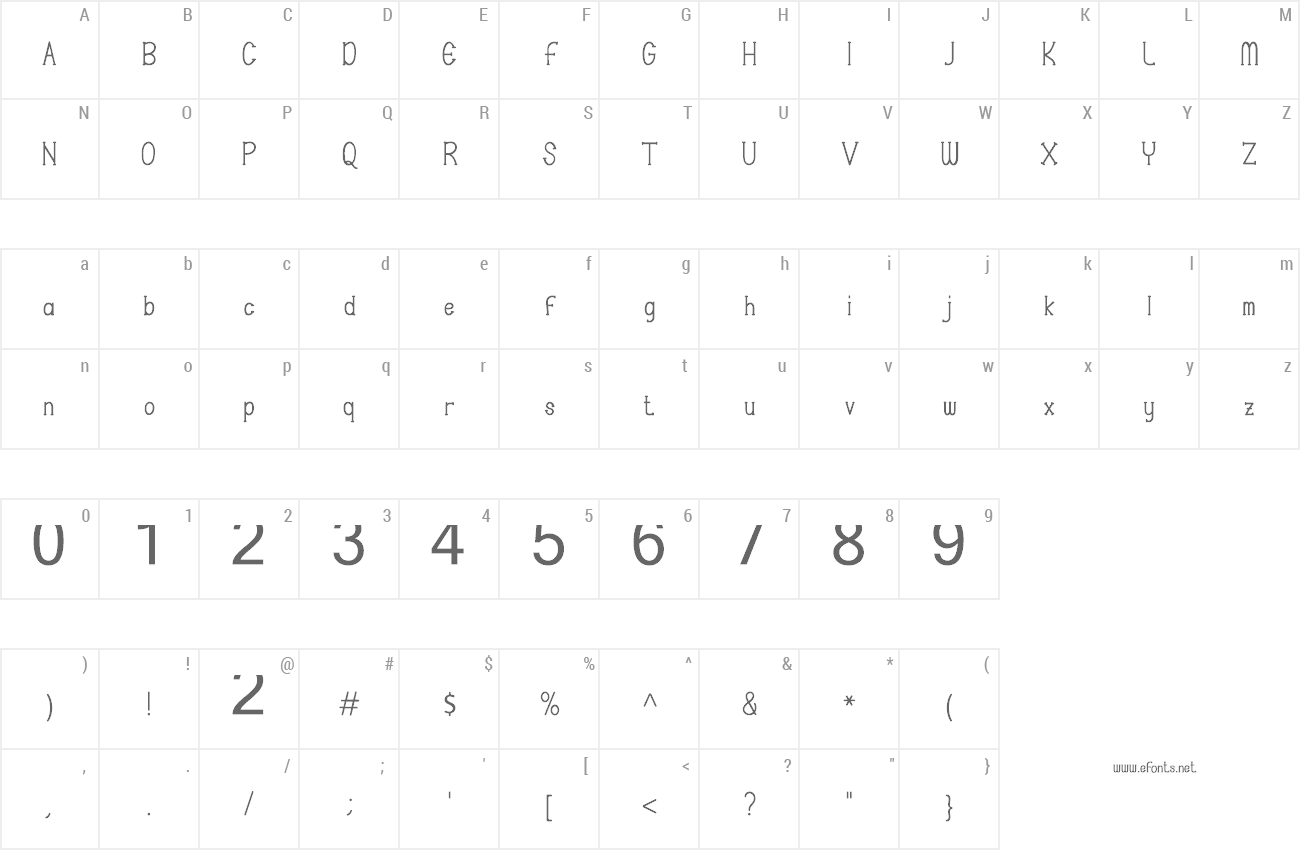
| Font name: | Carraosh |
| Author: | Randi Ilhamsyah |
| Note by Randi Ilhamsyah | |
Carraosh is a Monoline Display, a typeface. It contains including alternative characters such as: Titling, Terminal Forms, Stylistic Alternates, Multilingual, and Variant. Carraosh very suitable to use on many of your design projects such as Signage , Book Covers, Invitation, Packaging, Logotype and more. For Purchase : https://crmrkt.com/wl8Apd |